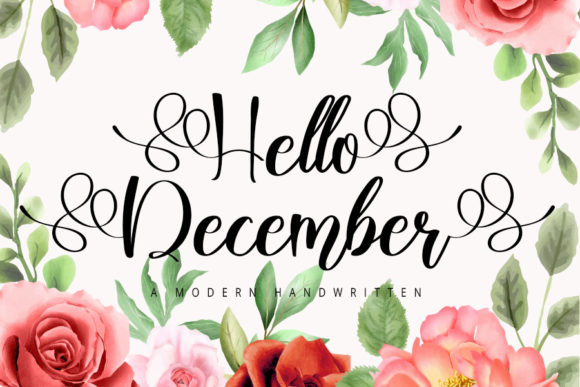
About Hello December Font
Hello December is a beautiful, well balanced and stylish script font. It is defined by smooth curves and is perfect for fashion branding or editorial designs. Add it confidently to your projects, and you will love the results.Â